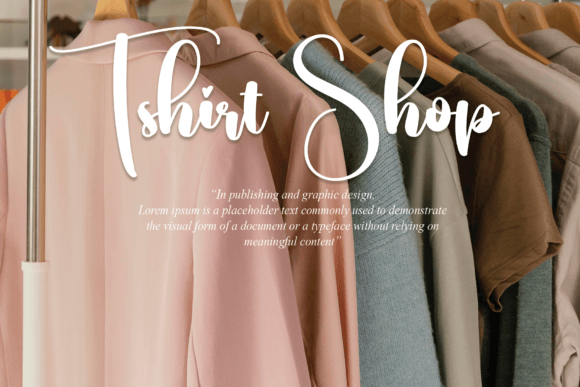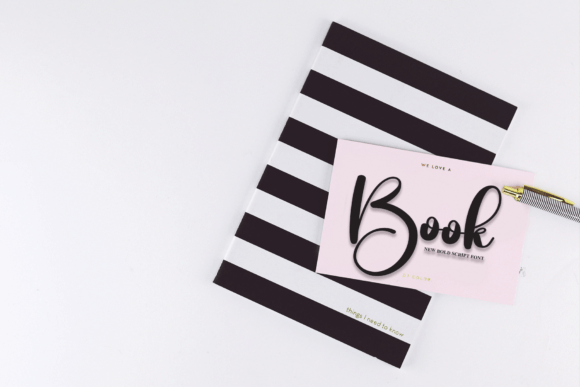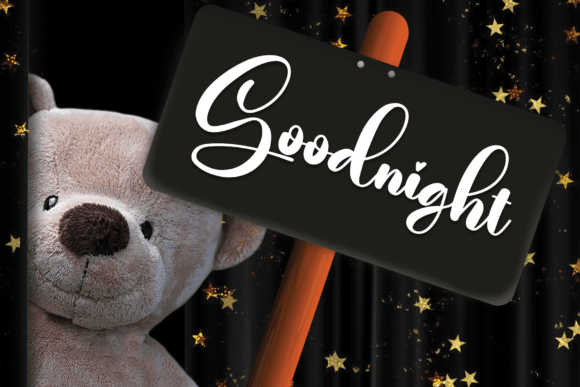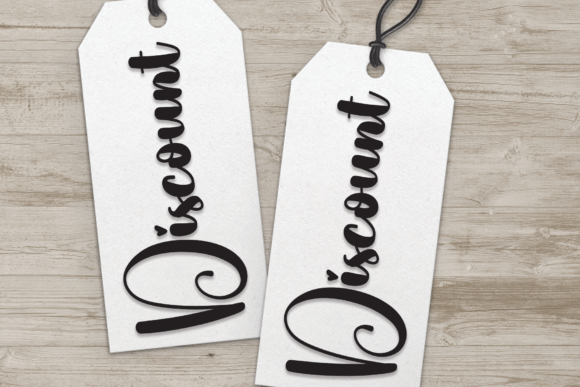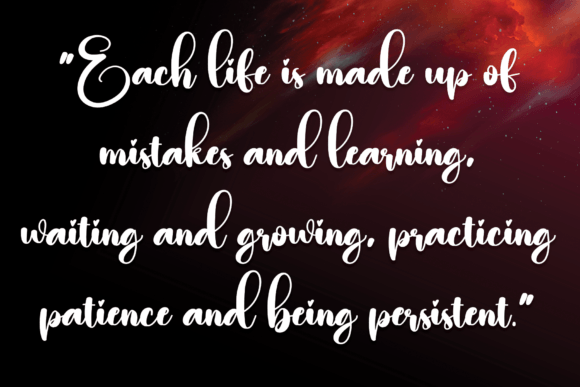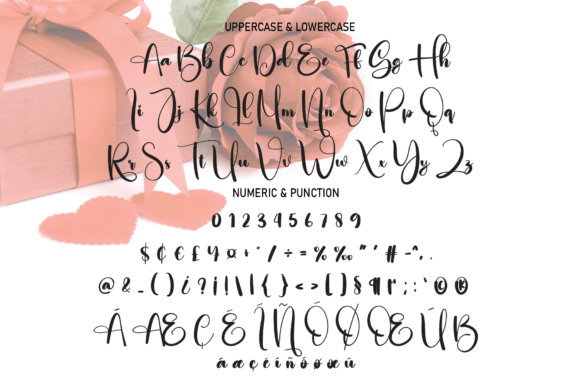
The Perfect Touch of Whimsy: Introducing Darling Font
Have you ever been browsing through a vintage bookstore, and the handwritten title of an old novel catches your eye? The way the letters dance across the page, full of character and charm, is what sparks the imagination of designers everywhere. It’s that same feeling we get when we stumble upon the perfect font – one that adds a touch of personality to our work.
Enter the Darling Font, a stylish and elegant script that’s perfect for adding a handwritten touch to any project. Whether you’re creating wall displays, wedding invitations, or social media post logos, this font is sure to bring a sense of warmth and sophistication to your designs. As a designer, you know how valuable a great font can be in elevating your work and making it stand out from the crowd.
Darling Font Key Features
- Font Family: Darling Font is a modern, elegant script font, ideal for creating a sophisticated and romantic atmosphere.
- Character Set: The font includes a wide range of characters, including uppercase and lowercase letters, numbers, and punctuation marks.
- Size and Resolution: Designed for optimal use at 24-48 points, with a recommended resolution of 300 DPI for high-quality printing and digital display.
- Unique Characteristics: The Darling Font features beautiful swashes, elegant flourishes, and subtle texture, making it perfect for wedding invitations, greeting cards, and other special occasion designs.
Darling Font Review
I was excited to dive into the Darling Font, and I have to say, it has some real charm. ✨ The font’s vintage aesthetic is on point, and the ornate details add a level of sophistication that’s hard to resist. The font’s versatility makes it perfect for a variety of projects, from elegant wedding invitations to high-end fashion labels.
One of the things that really stands out about the Darling Font is its extensive character set. ✨ With over 400 glyphs, you’ll have access to a wide range of ligatures, swashes, and ornaments to help you add a personal touch to your designs. The font’s OpenType features are also a bonus, allowing you to create complex and beautiful typography with ease.
However, I do have a few reservations about the Darling Font. ⚠️ For one, the font can be quite busy, with a lot of competing elements vying for attention. This can make it difficult to use the font effectively, especially in smaller sizes or in situations where readability is key. Additionally, the font’s ornate details can be a bit overwhelming, making it difficult to use as a display font.
Overall, I’d say the Darling Font is a solid choice for designers looking for a high-end, elegant font. While it may not be perfect for every project, its unique charm and versatility make it a great addition to any designer’s toolkit.
- ✨ Elegant, sophisticated aesthetic
- ✨ Versatile and perfect for a variety of projects
- ✨ Extensive character set with 400+ glyphs
- ✨ OpenType features for complex typography
- ⚠️ Can be busy and overwhelming
- ⚠️ May be difficult to use in smaller sizes or for readability
Tips for Getting the Most Out of Darling Font
Use the ‘Darling Font’ for titles and headings to add a touch of elegance to your designs. Experiment with different font sizes and colors to create visual interest. Combine the ‘Darling Font’ with other fonts to create a unique and stylish typography.
The ‘Darling Font’ is ideal for wedding invitations, greeting cards, and other formal designs. It’s also suitable for branding and logo designs that require a touch of sophistication.